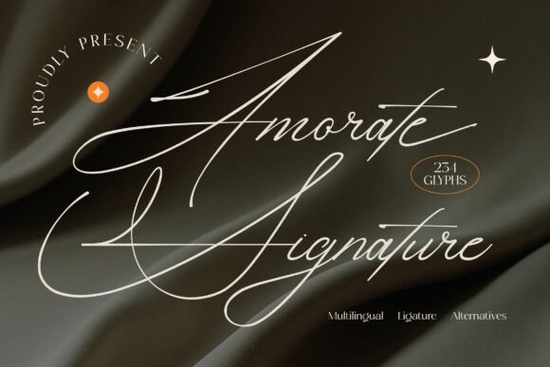
If you’ve ever wanted a handwritten look that feels both elegant and personal, the Amorete Signature Font is a great choice. This signature-style script comes with long, flowing strokes and fine details that mimic real ink on paper. Designers, print-on-demand sellers, and small business owners often turn to this type of font when they need a warm, handcrafted feel without the hassle of writing everything by hand.
What makes a signature script font feel so personal?
Unlike standard digital scripts, fonts like Amorate are built with natural variations. The letters have sweeping ascenders and descenders that connect smoothly, just like handwritten cursive. With 234 glyphs, including plenty of ligatures and alternate characters, you can tweak the spacing and shape of words to avoid repeating the same look. That’s key when you want a logo or watermark to feel unique rather than mechanical.
Where can you use a flowing script like Amorate?
This font works well in projects that need a romantic or premium touch. Common uses include:
- Wedding stationery – invites, save-the-dates, and place cards
- Photography watermarks – subtle signatures that stay legible on images
- Feminine branding – logos and packaging for beauty, fashion, or lifestyle products
- Social media quotes – short text that reads like a personal note
- Product packaging – labels, tags, and boxes that feel artisanal
Because the strokes are fine but clear, the text remains readable even when scaled down. That matters for watermarks or small text on packaging.
How do you access all those alternates and ligatures?
The font is PUA encoded, which means you don’t need special design software to use the extra characters. Programs like Microsoft Word, Canva, or any standard text editor that supports OpenType features will let you paste or insert alternates. If you’re using design software like Adobe Illustrator or Procreate, you can access the glyphs directly through the character panel. This makes it easy to create custom wordmarks without extra tools.
How does Amorate compare to other signature fonts?
Compared to many free signature fonts, Amorate offers more refined ligatures and smoother connections. The ascenders and descenders are long, so it creates that “silk thread” effect on the page. It pairs well with wide-spaced serif fonts – a quiet luxury look that’s popular for high-end stationery and editorial design. If you already use a font like pretty wedding fonts, Amorate gives you a more personal, handwritten alternative.
What kind of projects benefit most from this style?
- Logos for small businesses – especially boutique shops, bakeries, or florists
- Classy fashion editorials – adds movement and elegance to layouts
- Premium social media visuals – keeps the text feeling exclusive
- Custom signatures – for email newsletters or personal branding
The font’s fine lines and fluid motion help maintain legibility while giving designs a lot of movement. That balance is hard to find in many decorative scripts.
Practical tip for getting the most out of this font
When you first download the font, open the glyph panel and spend a few minutes testing different alternates for each letter. Write a short word, then swap in different swashes or caps. This lets you see which combinations look most natural together. For longer text, use the ligature sets – they help the letters flow without awkward gaps.
Next step: Try pairing Amorate with a clean sans-serif or a delicate serif for contrast. A simple layout with one word in the script font and supporting text in a light weight often looks best. Use the ligatures to create a natural rhythm – and remember to adjust the tracking (letter spacing) slightly wider for a more airy, premium feel.